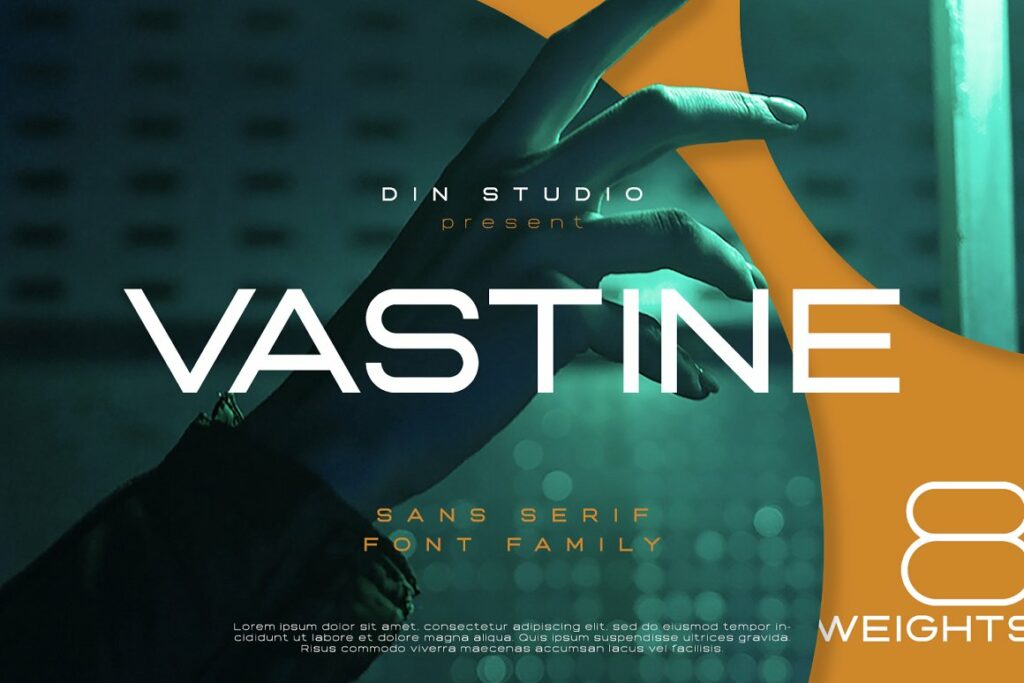
Vastine Font
Vastine-A Sans-Serif Font Family If we can give you many options then why not? Vastine is a package that will surprise you. With this family you will get many options to maximize your designs with stylish fonts.
Vastine is made in uppercase and lowercase that easy on the eyes and nice to look while it’s also easy to read. This font designed to bring your branding to life and add a touch of modernity, fun and style. Perfect to create amazing headings, logos, menus, social media graphics, and many more.
Vastine Sans Serif Font